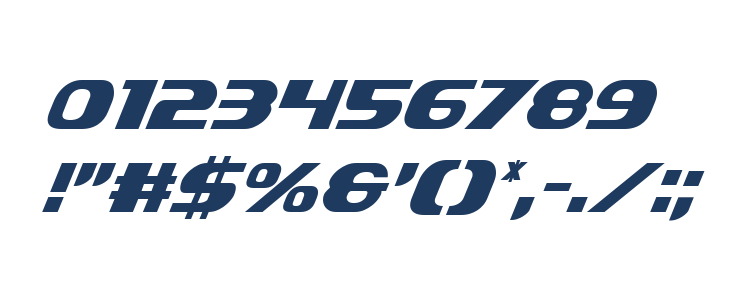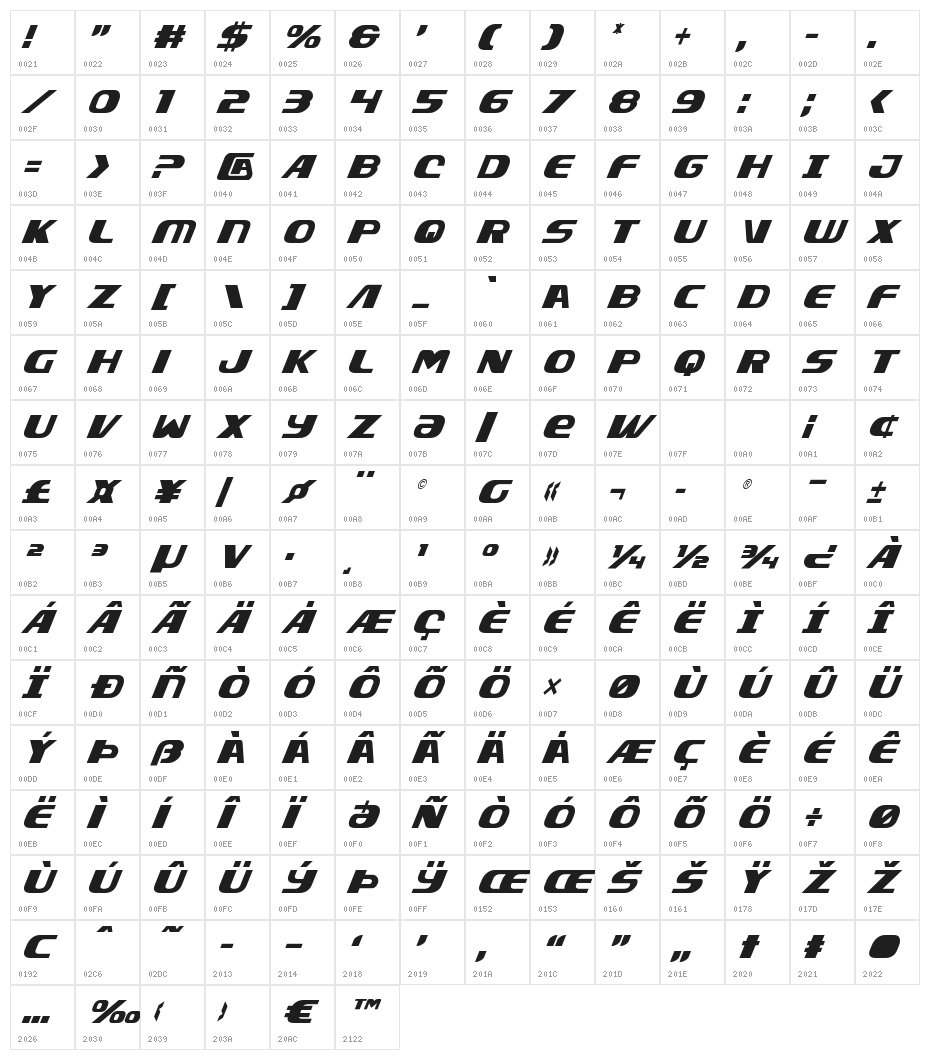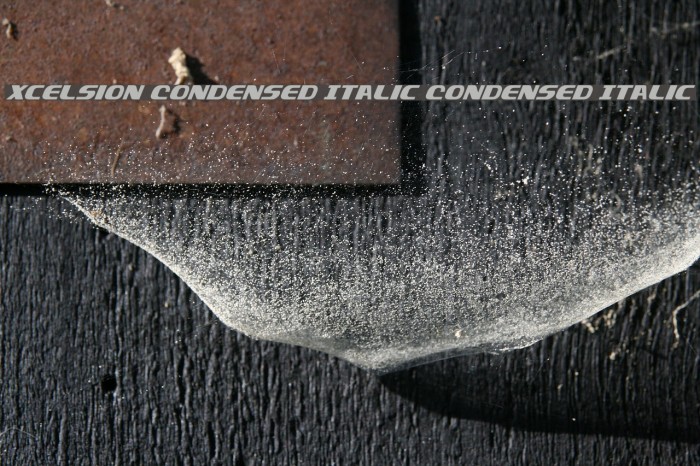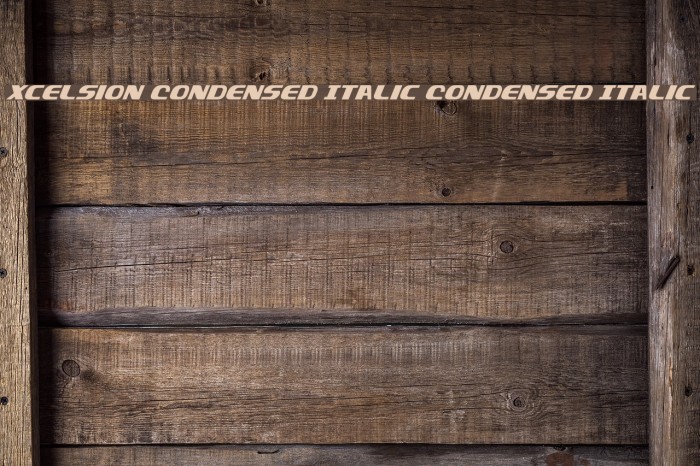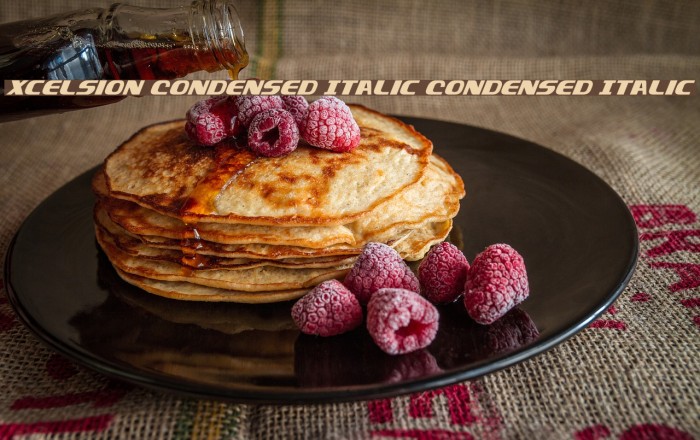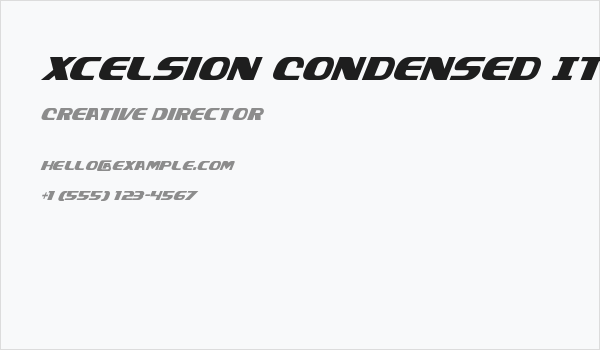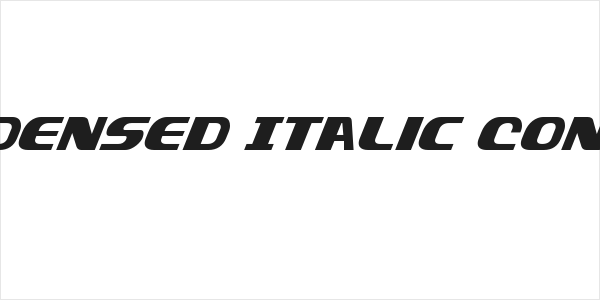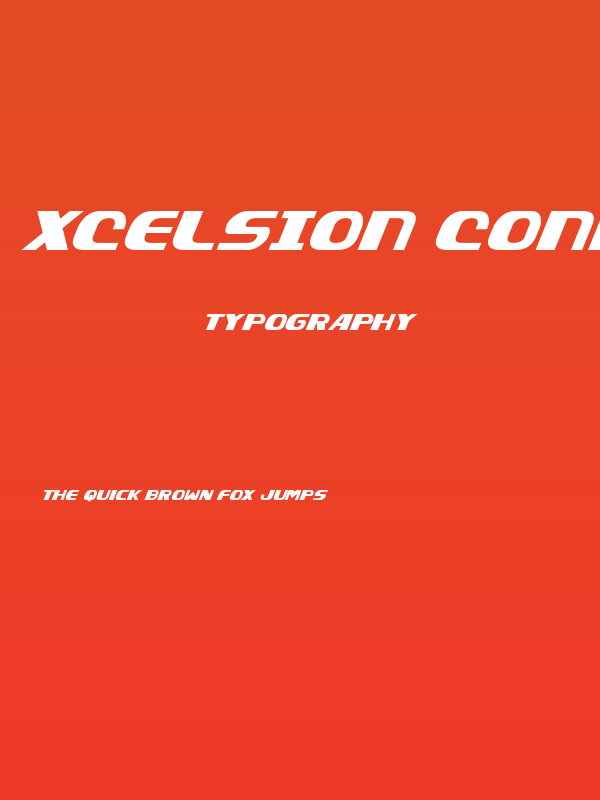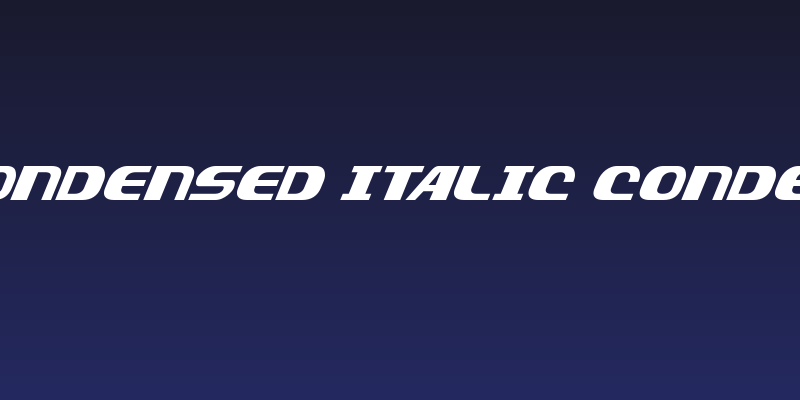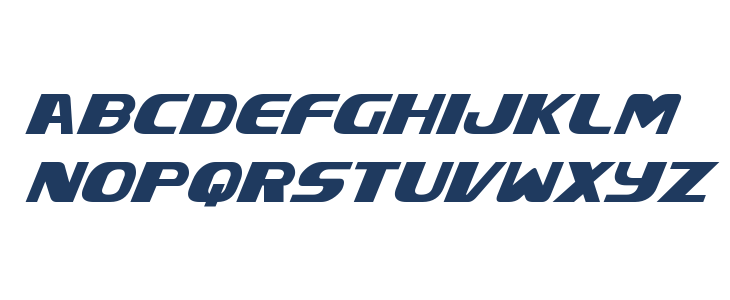
Xcelsion Condensed Italic Font
Xcelsion Condensed Italic Description
This font features a dynamic and modern design, characterized by its italicized and condensed letterforms. The angular and sleek appearance gives it a futuristic and energetic feel, making it stand out in any design. The characters are bold with a consistent stroke width, enhancing readability while maintaining a stylish edge. The spacing between characters is tight, contributing to its compact and streamlined look. This font is well-suited for projects that require a strong visual impact and a contemporary aesthetic.
| Proposed Projects | Ideal for sports branding, tech-oriented designs, dynamic posters, and futuristic themes. |